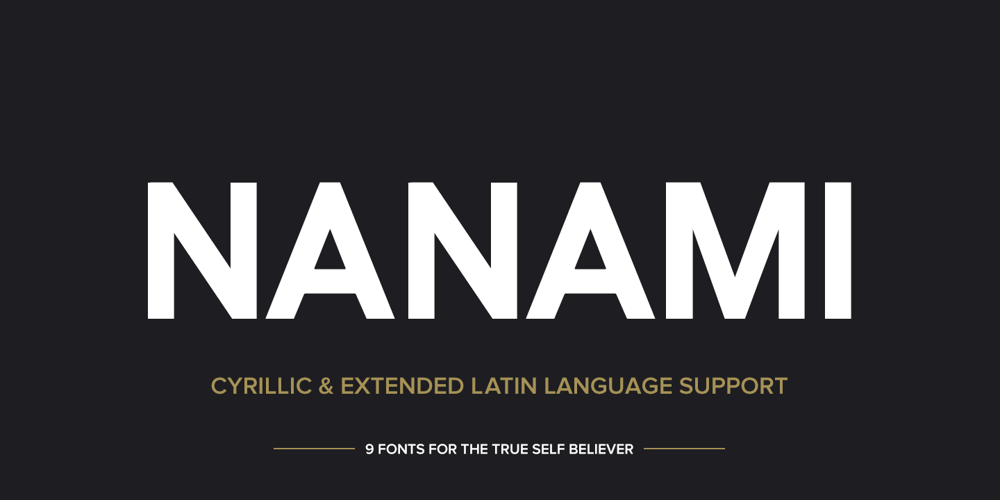
Nanami Pro Font Family was designed by Alex Haigh and published by HyperFluro. Nanami Pro contains 9 styles and family package options. Nanami Pro is the heavily engineered follow up to the hugely successful Nanami and Nanami Rounded font families. Nanami Pro contains all the wonder of the original Nanami families, but with vastly extended language support including Cyrillic and Extended Latin, leading to a total of 458 carefully crafted glyphs. The original Nanami was a key font in many a typography collection, but with these new multi-lingual credentials, Nanami Pro has become a true must-have font for anyone who’s serious about design.Tags: decorative, plain, modern, news, signage, outline, swiss, bauhaus, legible, cool, poster, angular, new, metro, logo, headline, dynamic, static, modest, neutral, magazine, model, cosmetics, creative, urban, fresh, menus, lineal, classic, thin, web, avant garde, fashion, garde, clean, heading, casual, elegant, geometric, serif, corporate, skinny